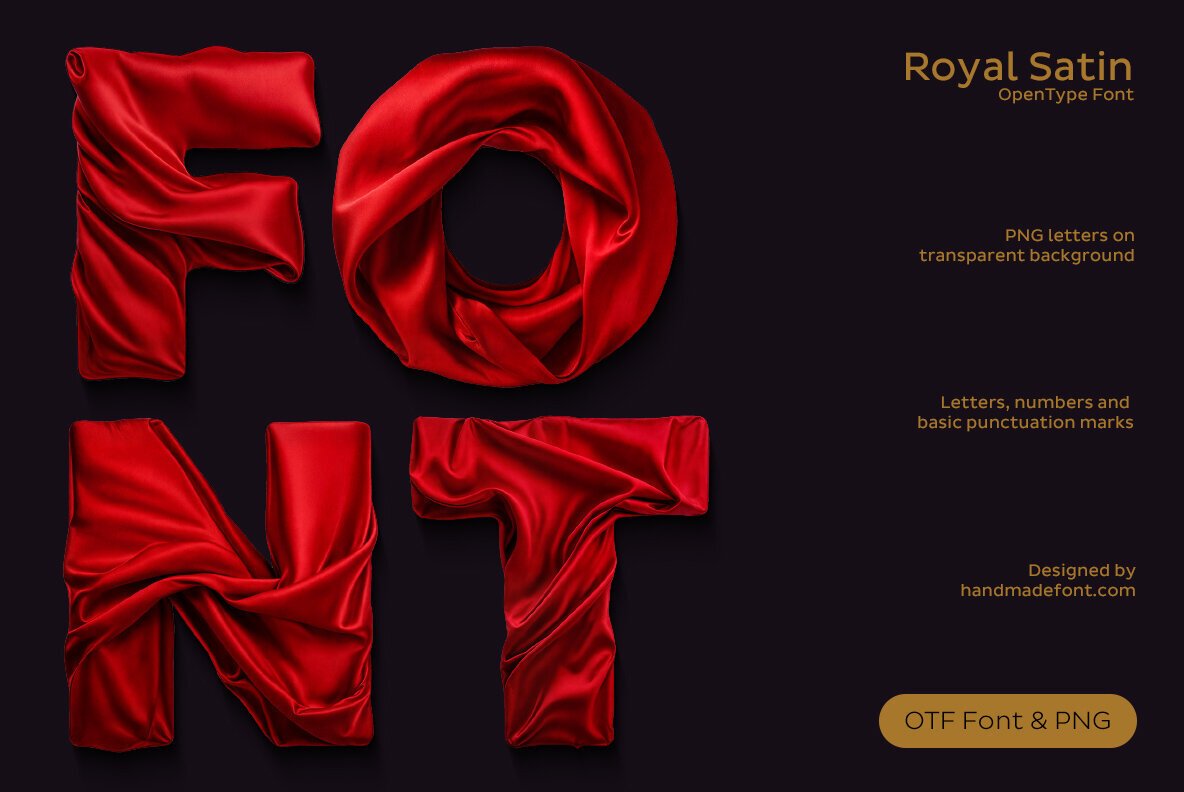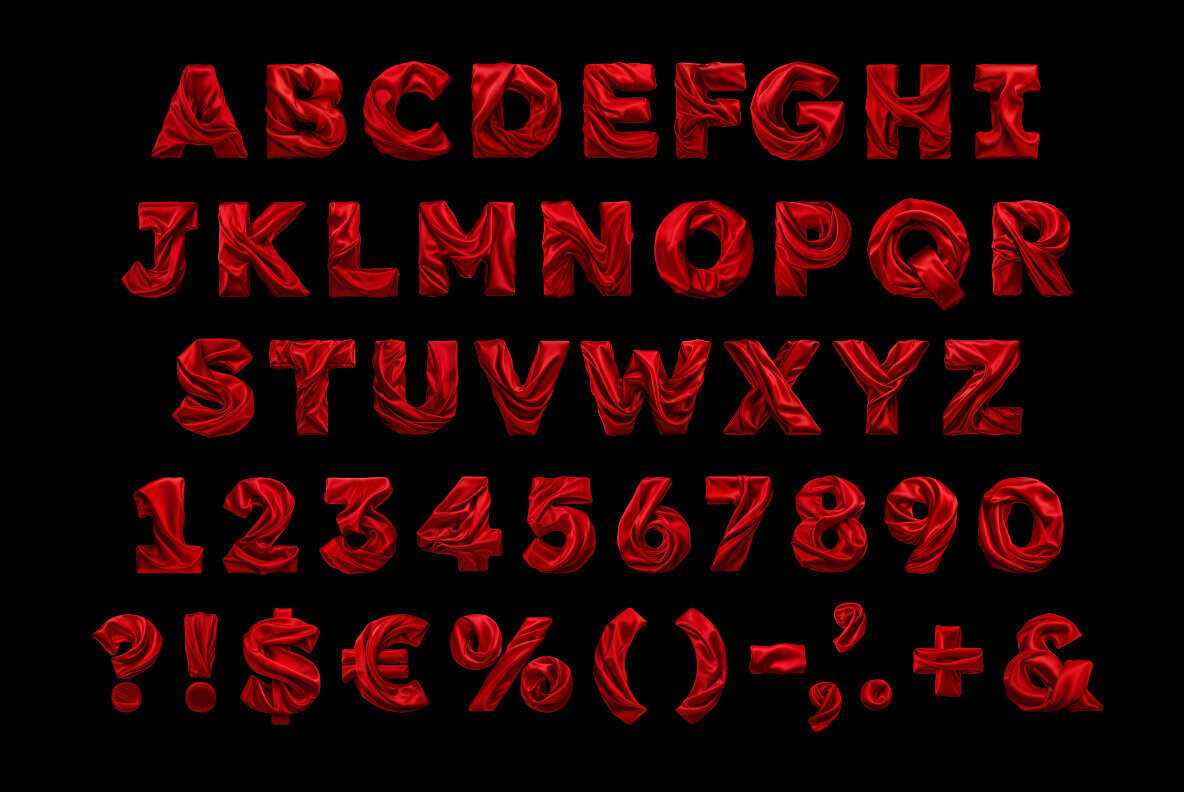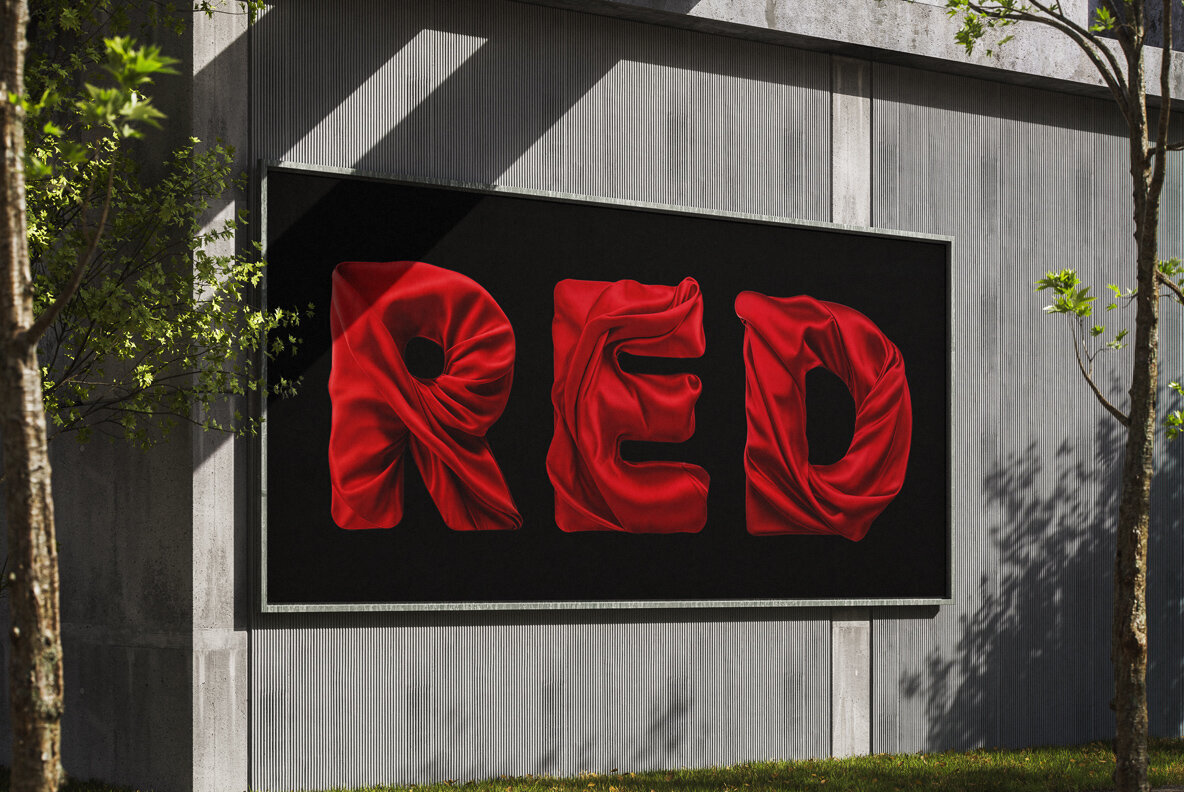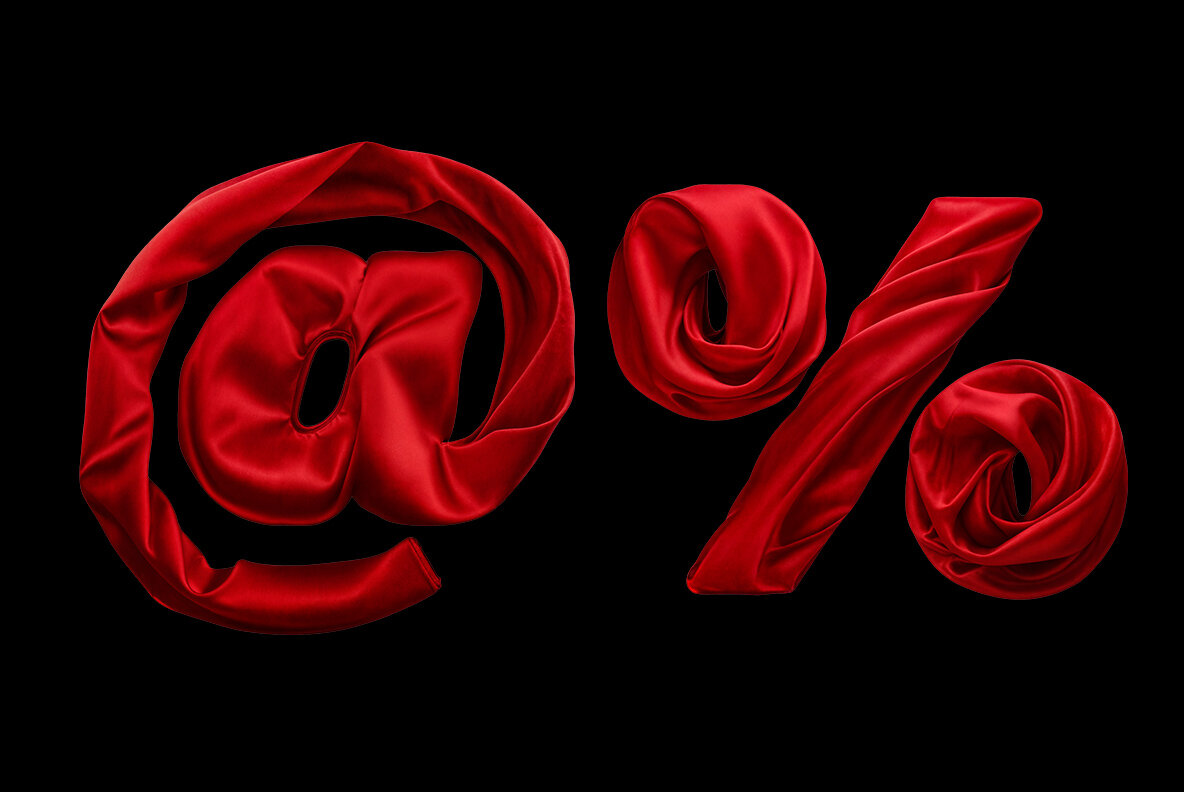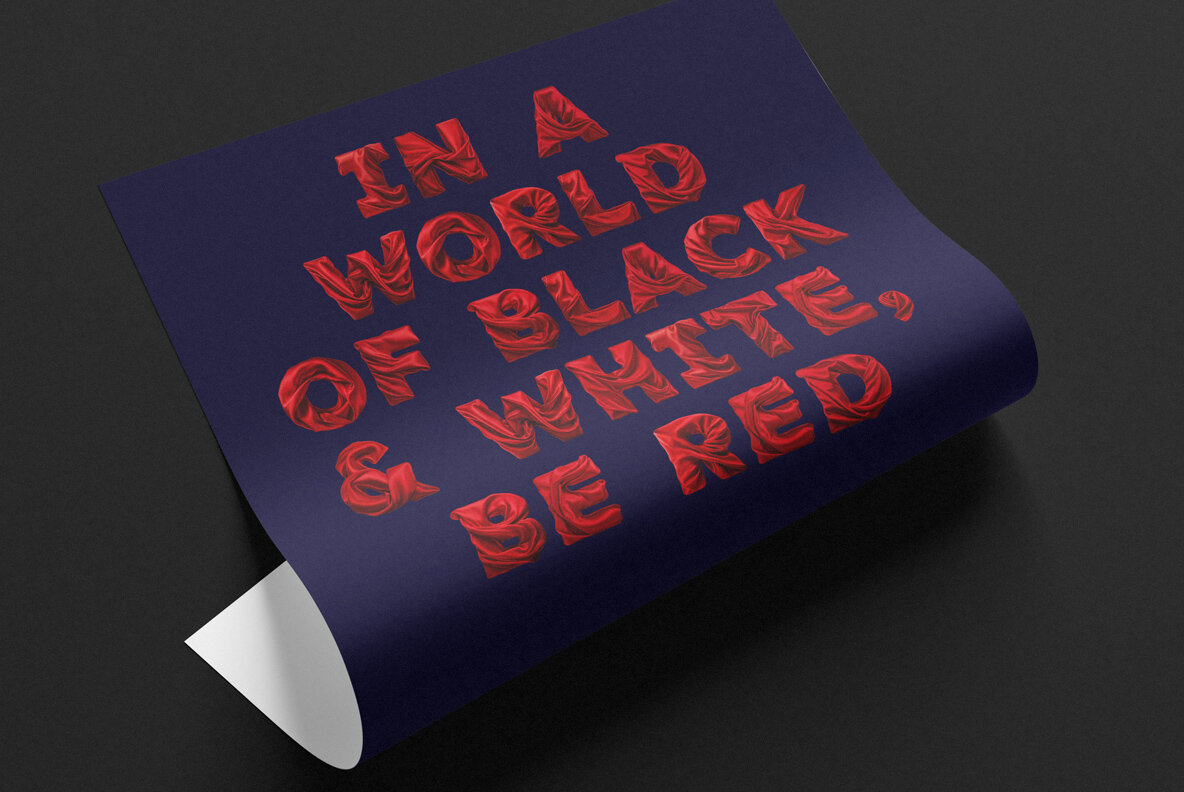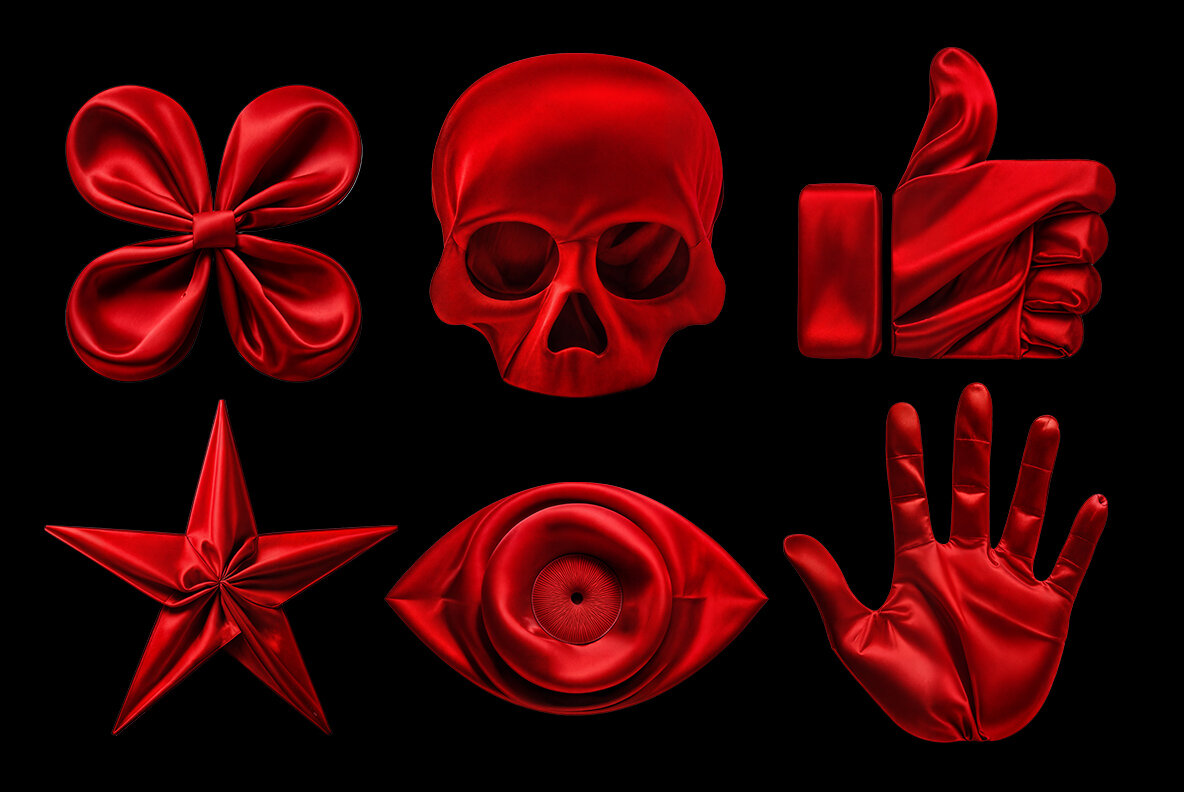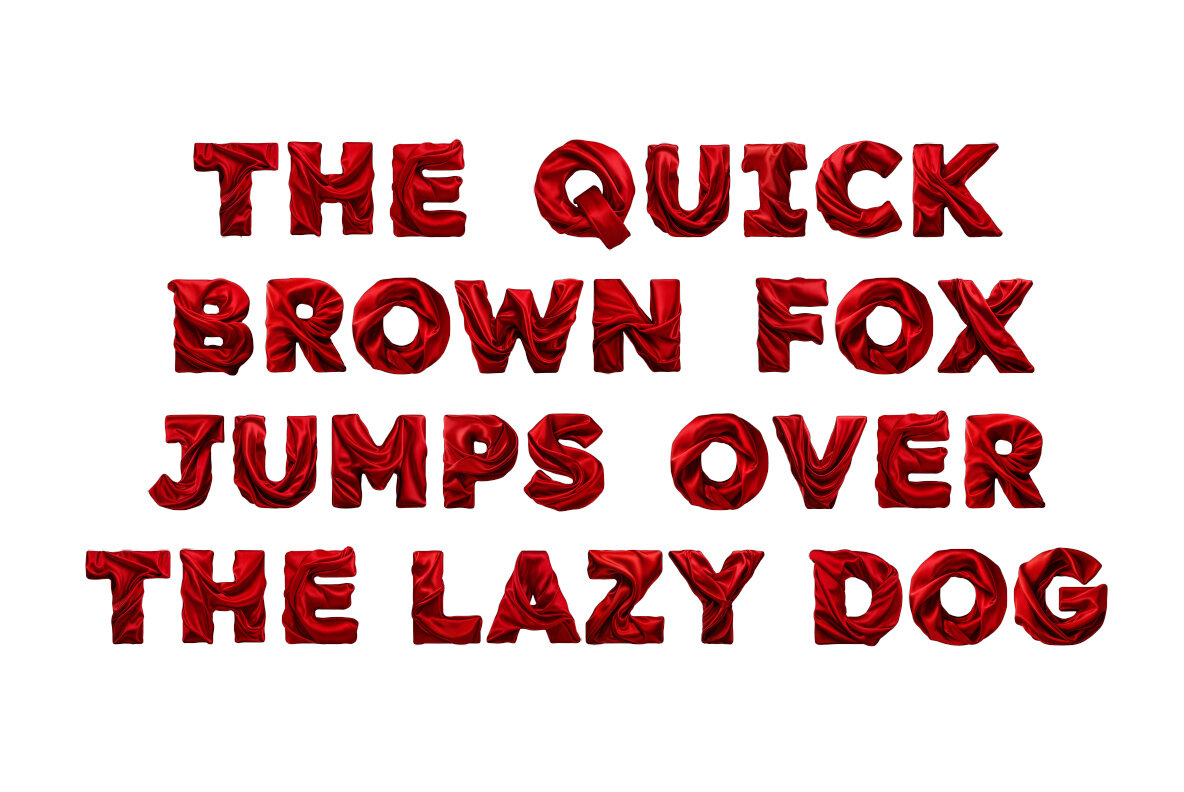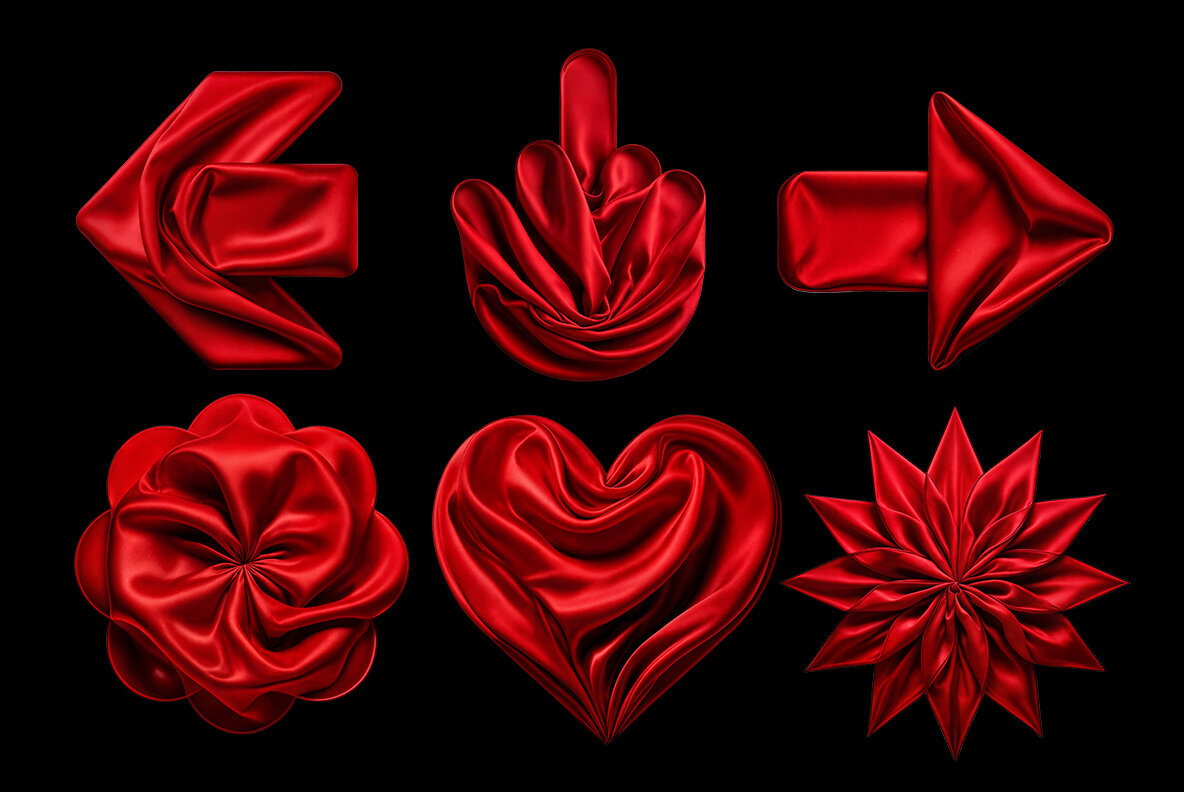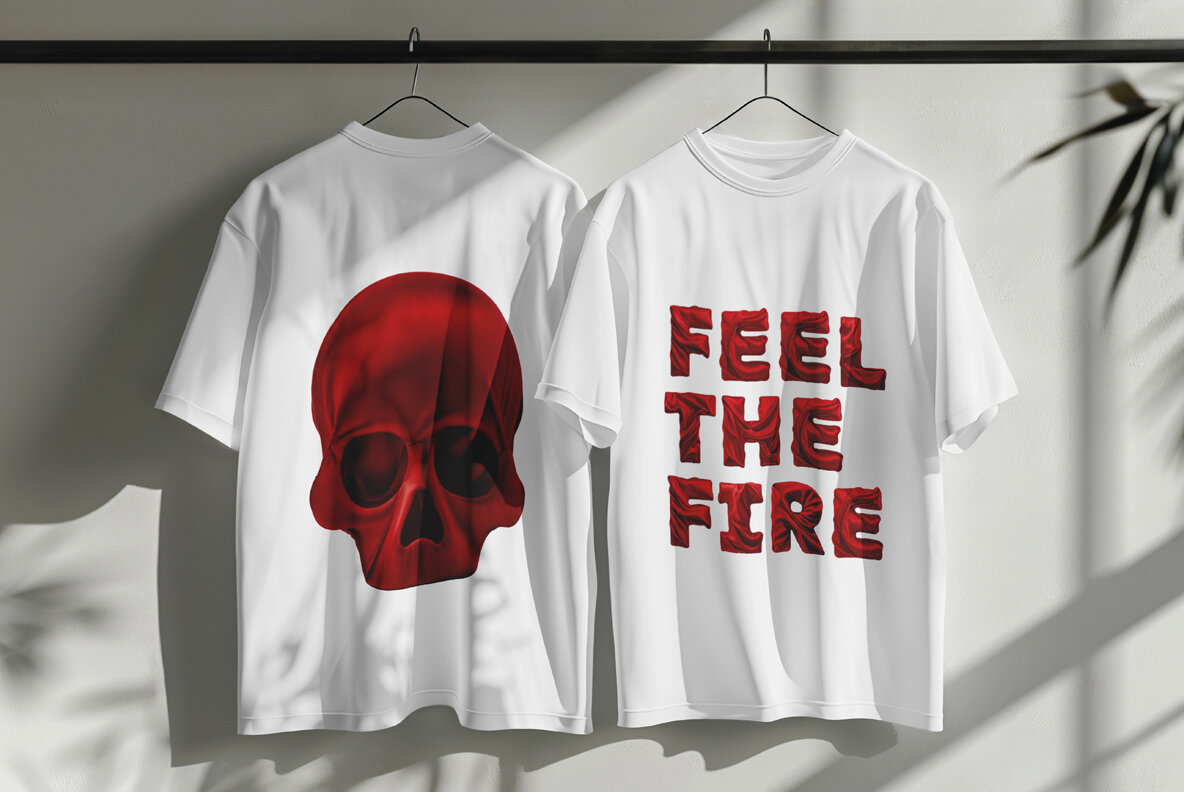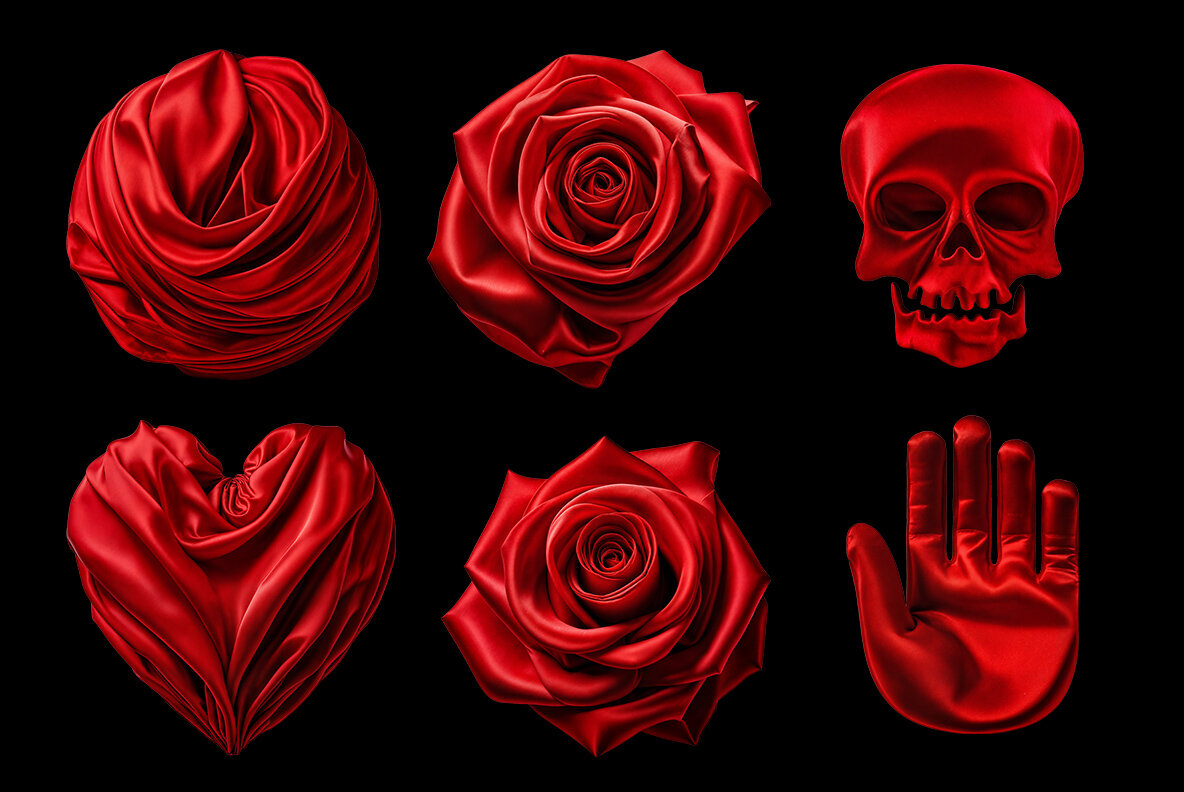
Royal Satin captures the essence of luxury with its elegant, opulent design inspired by flowing satin fabric. Each letter in this magnificent display font showcases realistic folds and textures, creating a three-dimensional, tactile quality that's truly captivating. The deep red hue of the characters enhances their regal allure, making this font a stellar choice for high-end fashion branding, beauty campaigns, and glamorous event invitations. This font transcends typical typography, embodying visual couture and bringing a sense of prestige to every word. Designed as a high-definition OpenType font, Royal Satin includes uppercase characters, numerals, and basic punctuation. It supports a variety of software due to its OpenType-SVG compatibility, including Photoshop, Illustrator, InDesign, and more. Additionally, each character is available as a high-resolution PNG file, perfect for any graphics software.Royal Satin SVG: Elegance in Typography